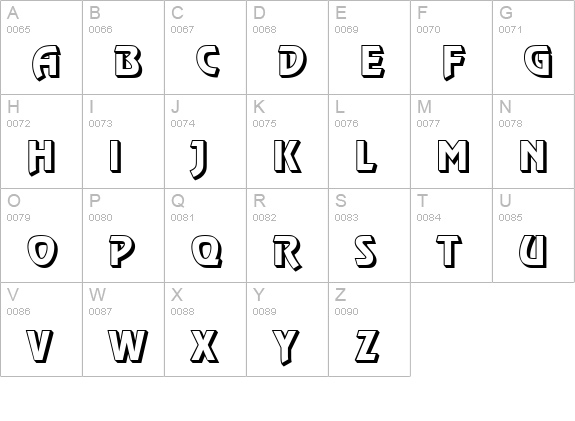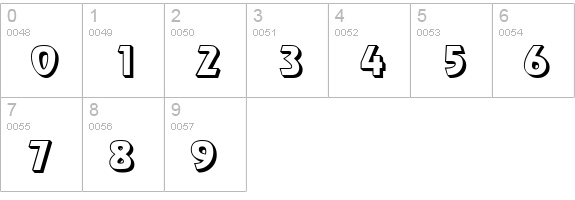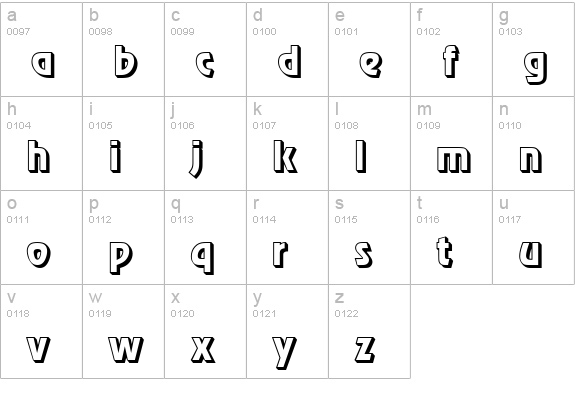
Chorus Line Shadow SSi Font Details
Chorus Line Shadow SSi font is a stunning display typeface that exudes elegance and sophistication. This unique font features intricate shadow details that add depth and dimension to any design project. With its graceful curves and timeless appeal, Chorus Line Shadow SSi font is perfect for creating eye-catching headlines, logos, and branding materials. The best part? Chorus Line Shadow SSi font is available for free download at FontsMarket.com! Whether you're a professional designer looking to add a touch of class to your work or a hobbyist seeking to elevate your projects, this font is sure to impress. Don't miss out on the opportunity to enhance your designs with this exquisite typeface – download Chorus Line Shadow SSi font today and take your creations to the next level!